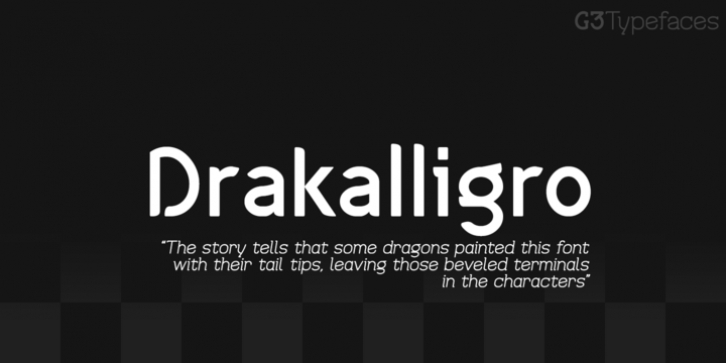
This typeface was inspired in my dragon drawings, I like dragons and I thought in designing a special font with that inspiration. As the picture tells it, I gave a beveled shape to its terminals, looking like brush traces.
Some characters are intentionally opened to give it a distinctive appearance. The number “3” has a different form, combining a wide angle and an opened circle, variating the way to make it. This font is special for some titles and it can even be used in comic dialogues.